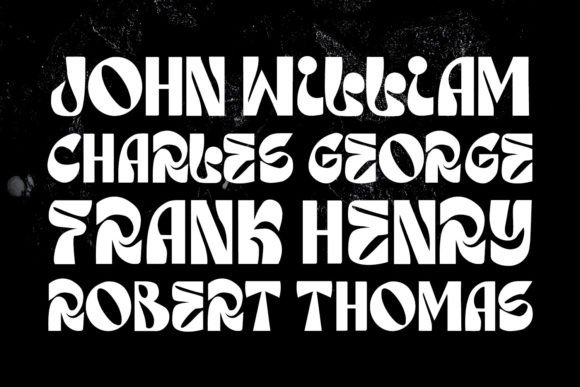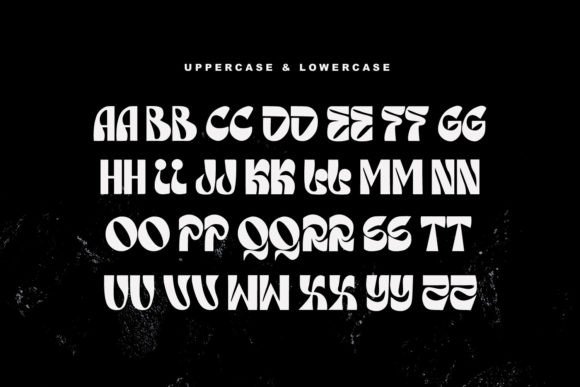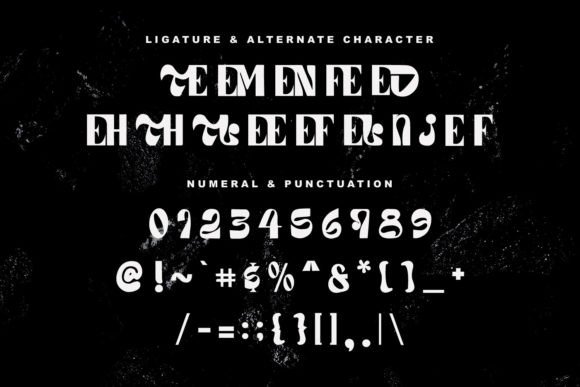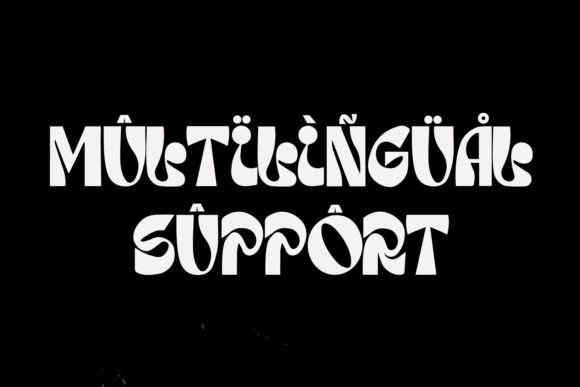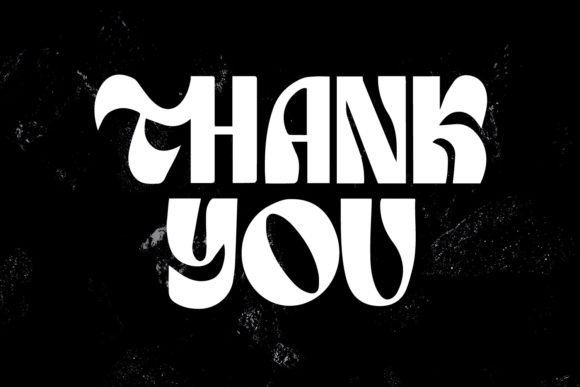
Introduction to Roile Arnid Font
Roile Arnid is a display font, a fun character with a bit of ligature.
To give you extra creative work Roile Arnid font support multilingual more than 100+ language.
Key Features of Roile Arnid Font